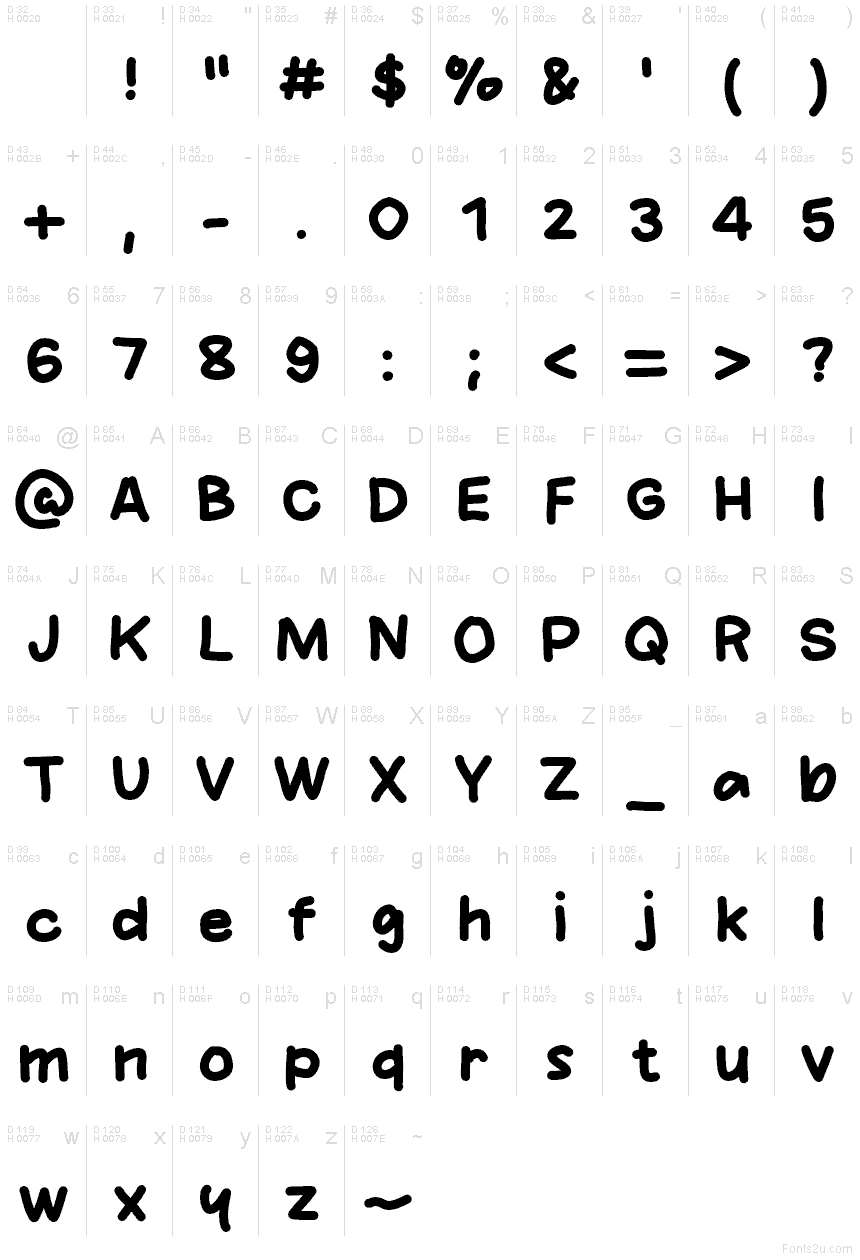
Obled Kids
Obled Kids font is a youthful handwritten font from the talented Origin Type. The free handwritten font has irregular shapes that are clearly visible which gives your text that cool and informal aesthetic feel. Why not incorporate this typeface when designing for contemporary uses in children’s products and media, among other things?
There’s so much you can do with Obled kids by simply allowing your creative self to be set free today. Incorporate it in invitations, brochures, title or headings on websites or articles, birthday cards, nursery posters, fairytale books and so much more! Using this font can allow you to stand out from others while portraying just the image you intended.